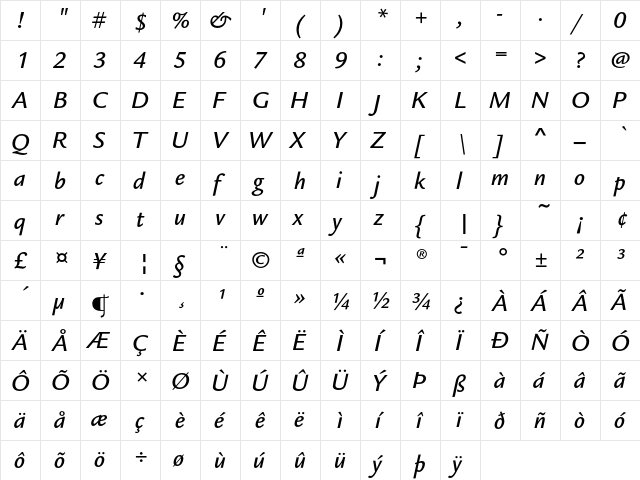
LegacySansEF MediumItalic Font Preview
LegacySansEF MediumItalic
Design Context for LegacySansEF Typeface
LegacySansEF takes a measured approach to typography — its balanced proportions and neutral character make it a reliable workhorse for both digital and print work. Its italic angle brings a sense of urgency and motion to the letterforms.
Pro Tip: Try LegacySansEF for annotation and caption copy alongside an upright companion — the contrast in angle creates a dynamic but ordered typographic system.